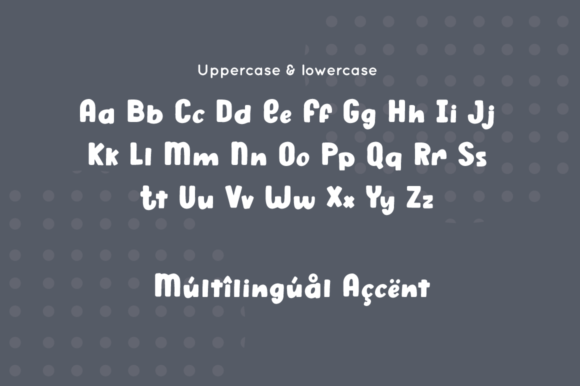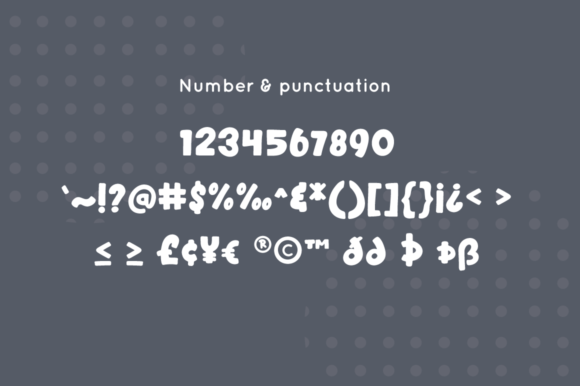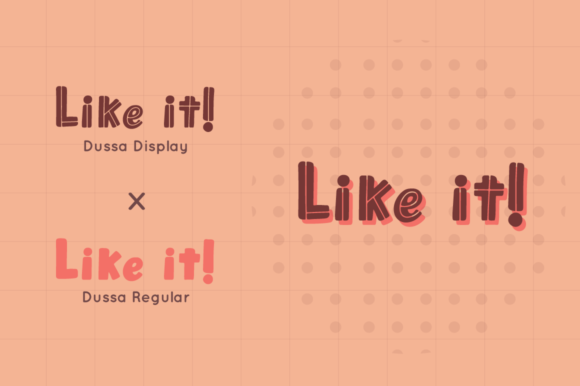
The Ultimate Display Font: A Deep Dive into Dussa
I’ll never forget the time I was working on a project for a client who needed a bold, eye-catching font to make their brand stand out. I spent hours scouring the internet for the perfect font, but nothing seemed quite right. That was until I stumbled upon Dussa, a thick lettered and playful display font that instantly caught my attention. In this article, I’ll share my experience with Dussa, its features, and how to make the most of it in your designs.
An Honest Review of Dussa
So, what makes Dussa such a great font? Here are some of the things I love:
- ✨ Versatility: Dussa is a incredibly versatile font that can be used for a wide range of projects, from bold headlines to playful signage.
- ✅ Readability: Despite its bold nature, Dussa remains highly readable, even at smaller sizes.
- 💥 Personality: Dussa has a unique personality that adds a touch of playfulness to any design.
Of course, no font is perfect, and Dussa does have a few quirks:
- 🤔 Limited use for body text: Due to its bold nature, Dussa is not suitable for large blocks of body text.
- ⚠️ Kerning issues: Some users have reported kerning issues when using Dussa at very small sizes.
A Practical Guide to Using Dussa
The Story Behind Dussa
Dussa was designed by a team of typographers who wanted to create a font that was both bold and playful. Inspired by the world of graffiti and street art, Dussa is a font that’s meant to make a statement. Whether you’re designing a logo, a poster, or a website, Dussa is a font that’s sure to turn heads.
| Font Name | Dussa Font |
| Author | attypestudio |
| What is Dussa best used for? | Dussa is best used for bold headlines, titles, and signage. |
| Is Dussa suitable for body text? | No, Dussa is not suitable for large blocks of body text due to its bold nature. |
| Does Dussa support OpenType features? | Yes, Dussa supports OpenType features, including Stylistic Alternates and Glyphs. |